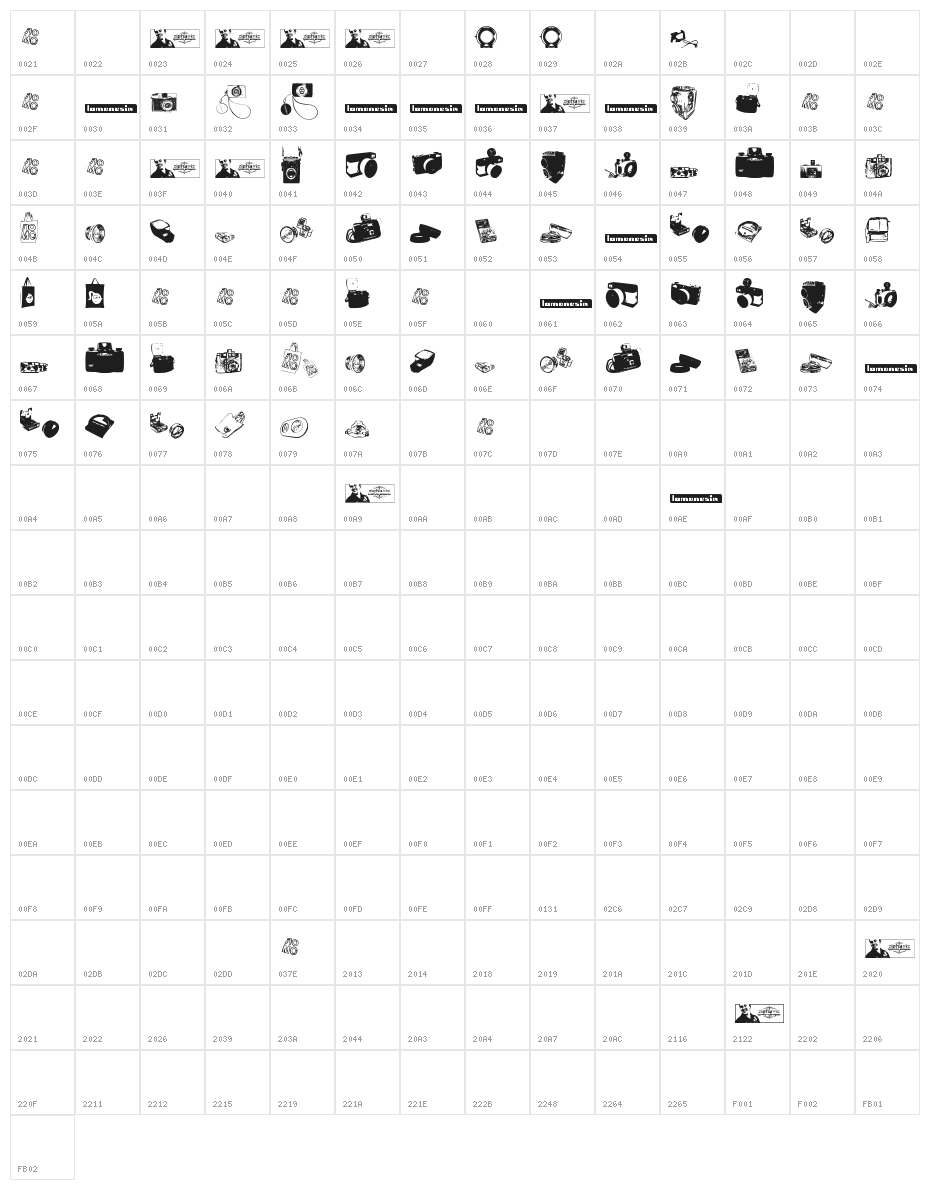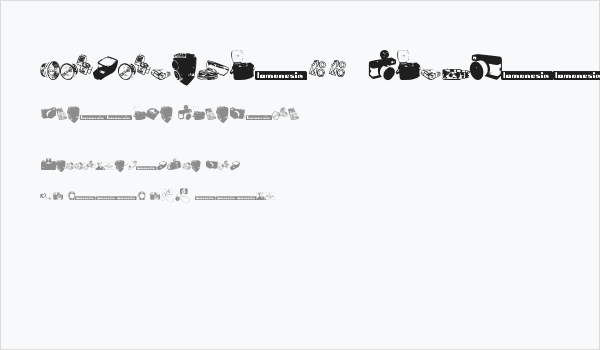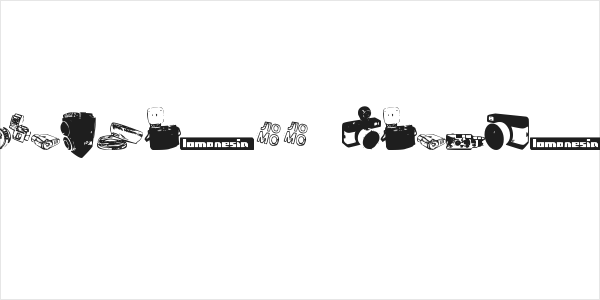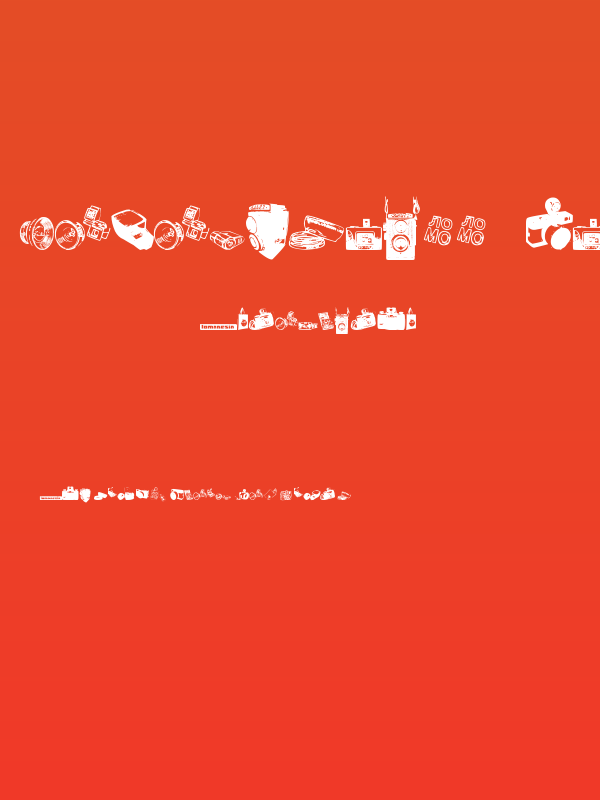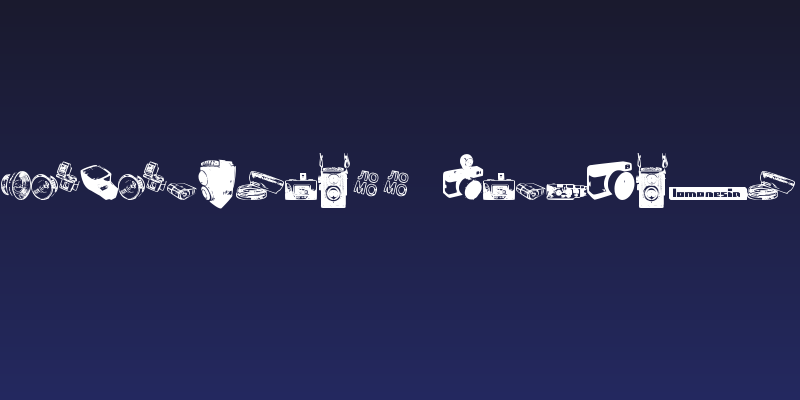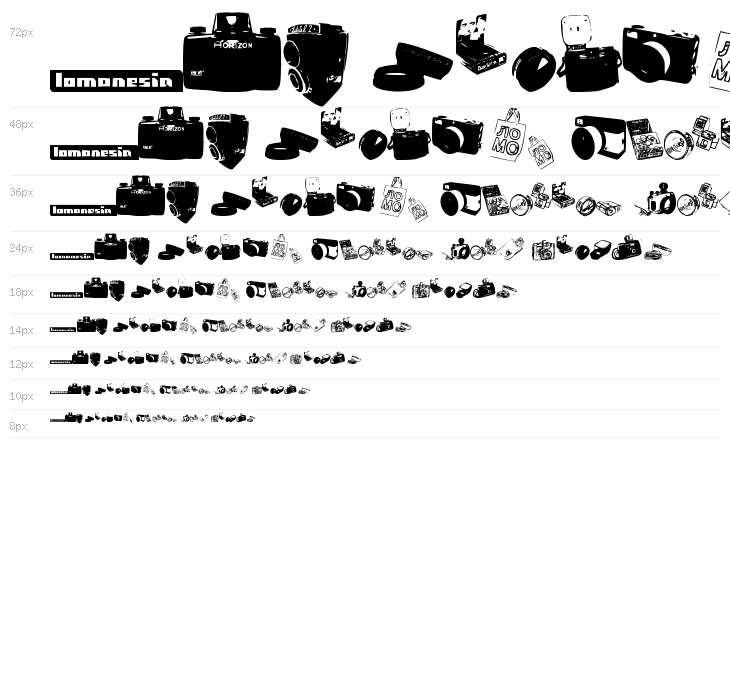
Lomonesia!" Dingbats Font
Lomonesia!" Dingbats Description
A dingbat font featuring detailed black and white illustrations of vintage cameras, camera accessories, and related photography items, with some blocks of text and logo-style graphics included.
| Overall Style | Decorative, Thematic, Vintage |
| Use Case | Logos, Decorative elements, Themed graphics, Scrapbooking |
| Proposed Projects | Photography branding, scrapbooking, event invitations, creative posters, themed merchandise, educational materials about cameras. |